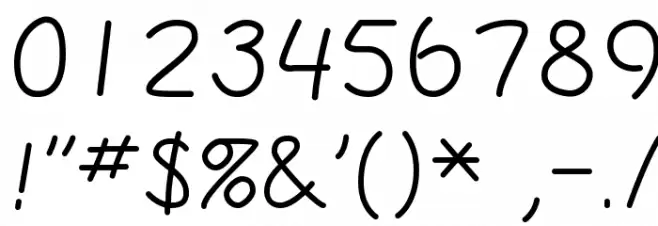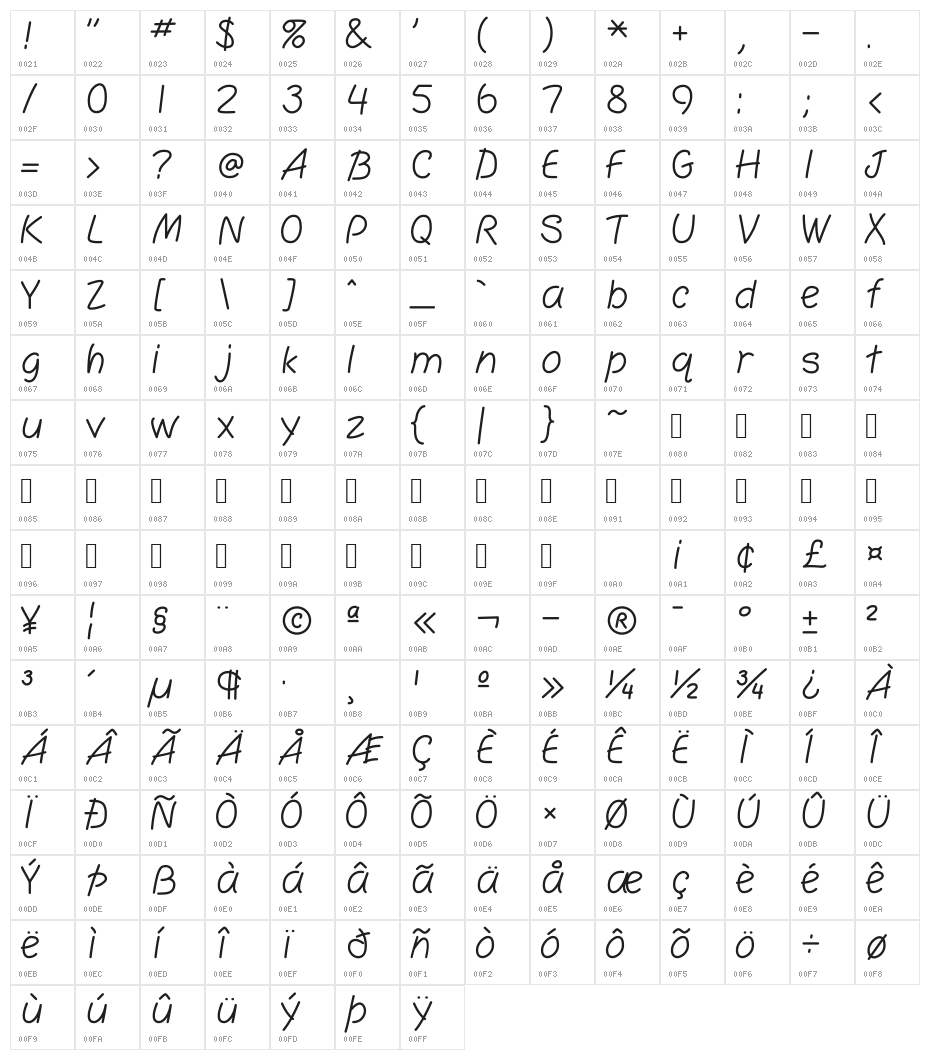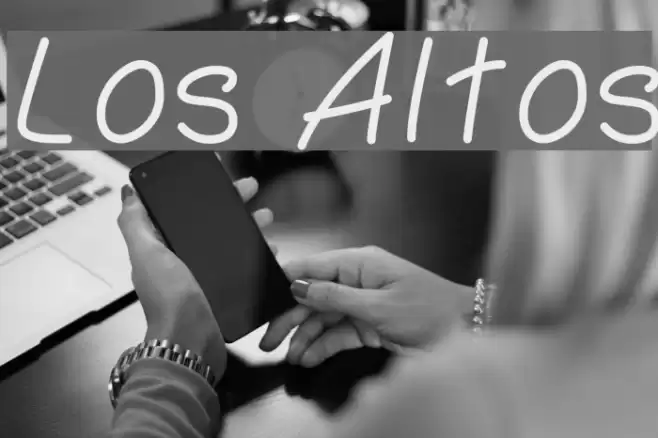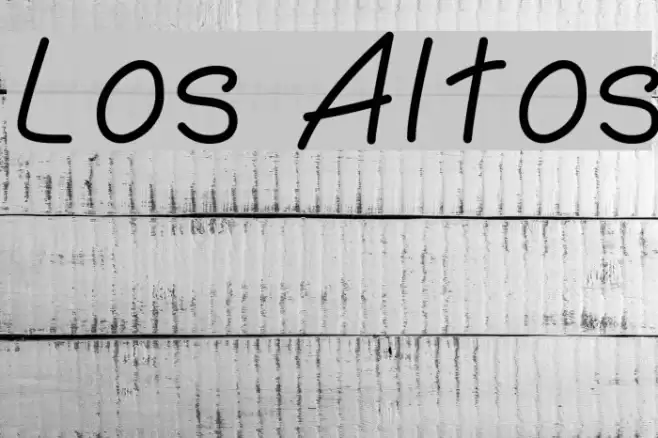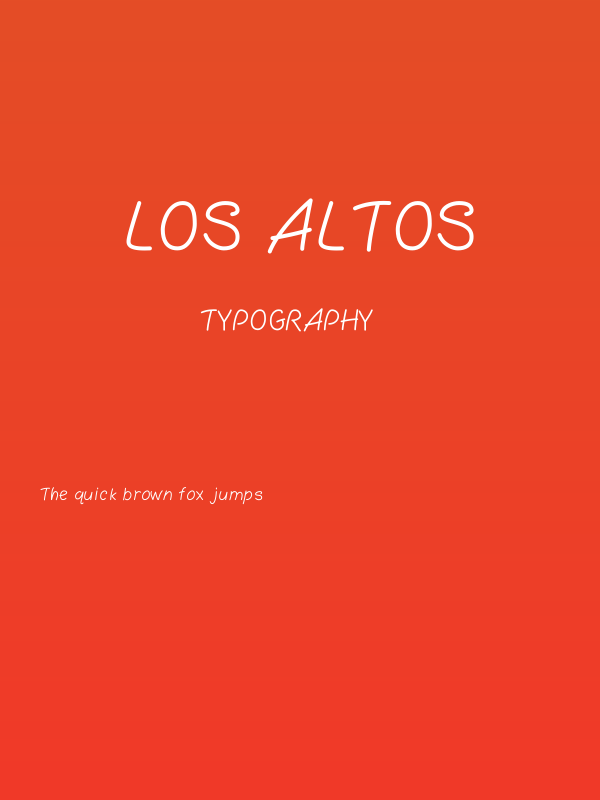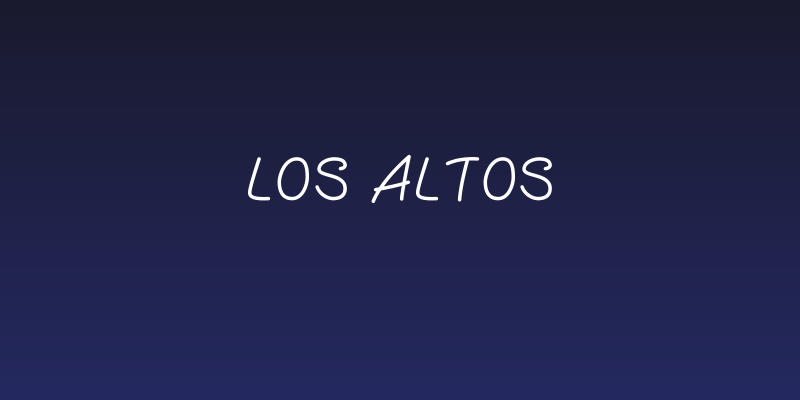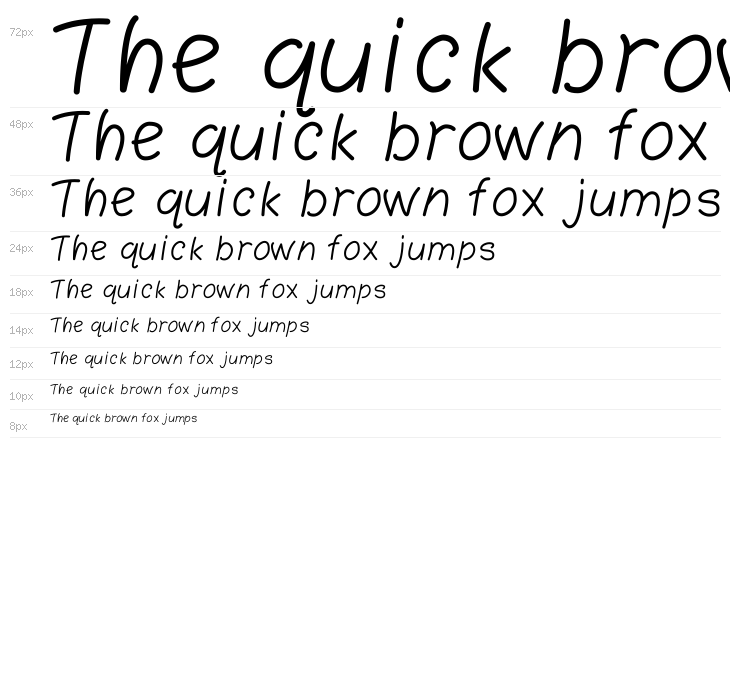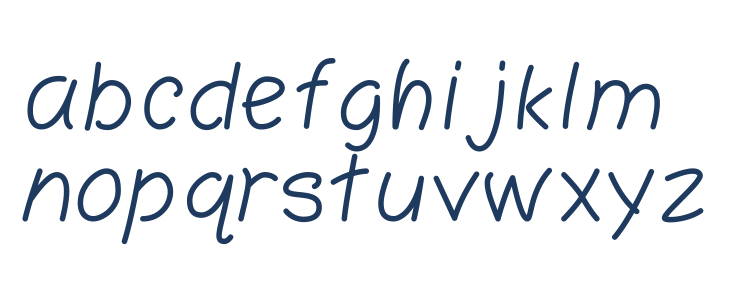
Los Altos Font
Los Altos Description
This font features a casual, handwritten style with smooth, flowing lines that give it a personal and approachable feel. The characters are slightly slanted, adding to the informal and relaxed appearance. The strokes are consistent in width, providing a uniform look across all letters and numbers. The uppercase letters are distinct and clear, while the lowercase letters maintain a cohesive style that complements the overall design. The numerals are simple and easy to read, and the special characters are well-integrated, maintaining the font's casual aesthetic.
Overall StyleCasual
Use CaseLogos, Invitations, Social media graphics
Proposed ProjectsIdeal for personal invitations, greeting cards, casual branding, and social media graphics.